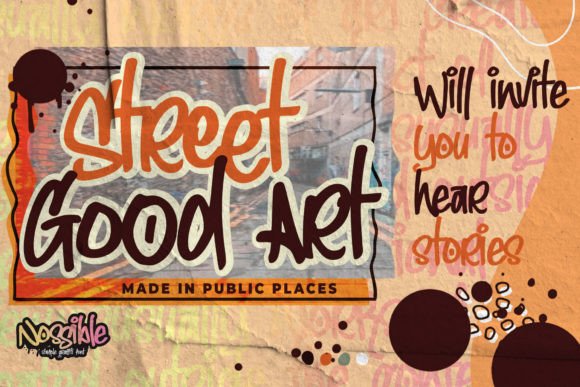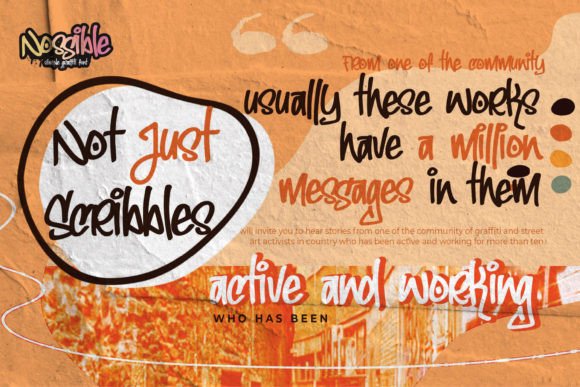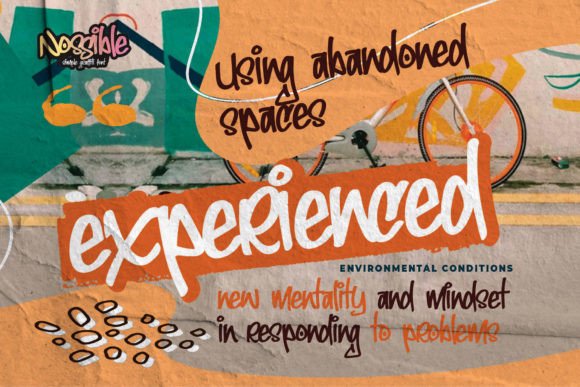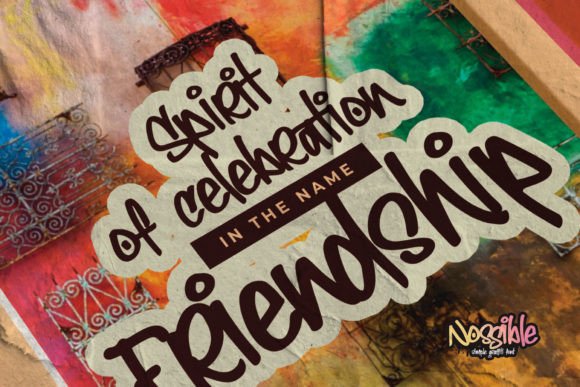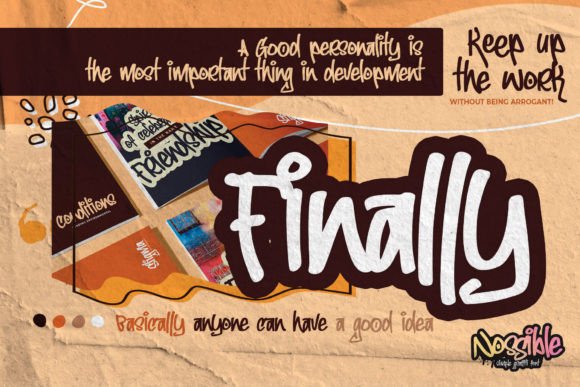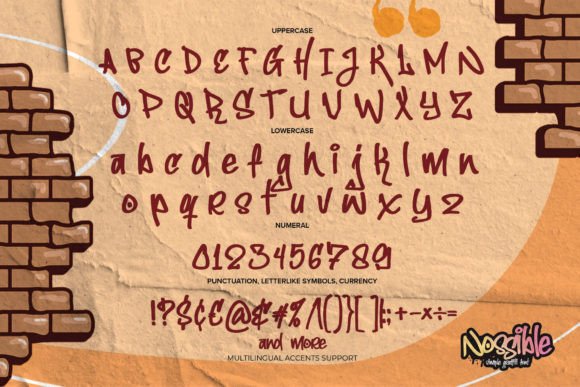
Introduction to Nossible Font
NOSSIBLE is a simple Graffiti Font with a natural authentic classy style.
This font is great for your creative projects such as watermark on photography, and perfect for logos & branding, invitation, advertisements, product designs, stationery, wedding designs, label, product packaging, special events or anything that need handwriting taste This handmade font will make your design has a beautiful natural touch for each detail.